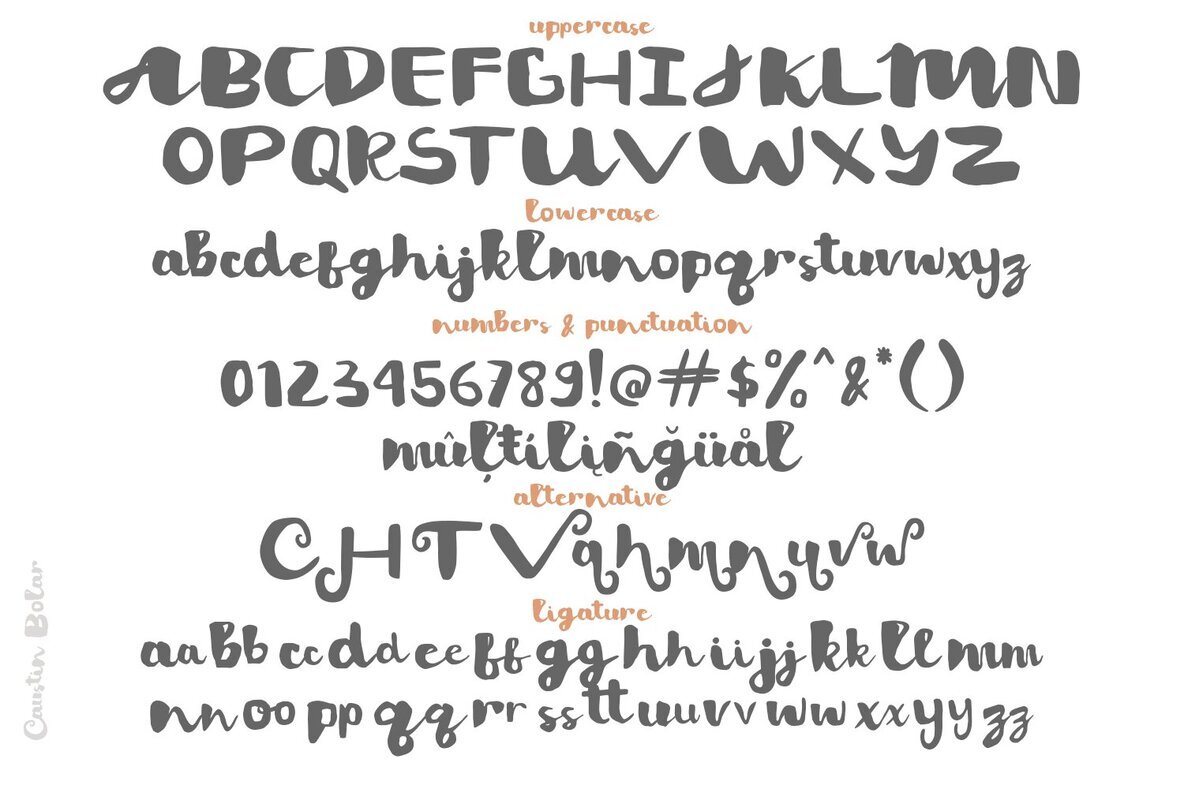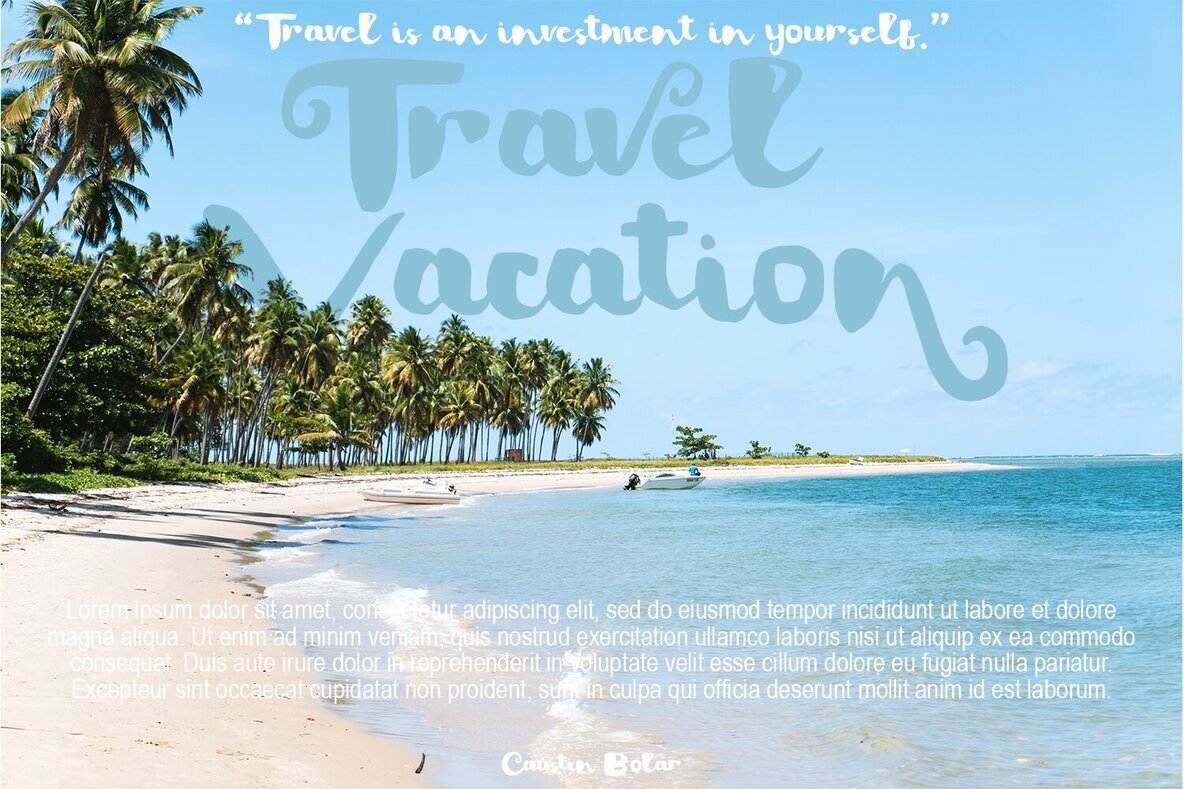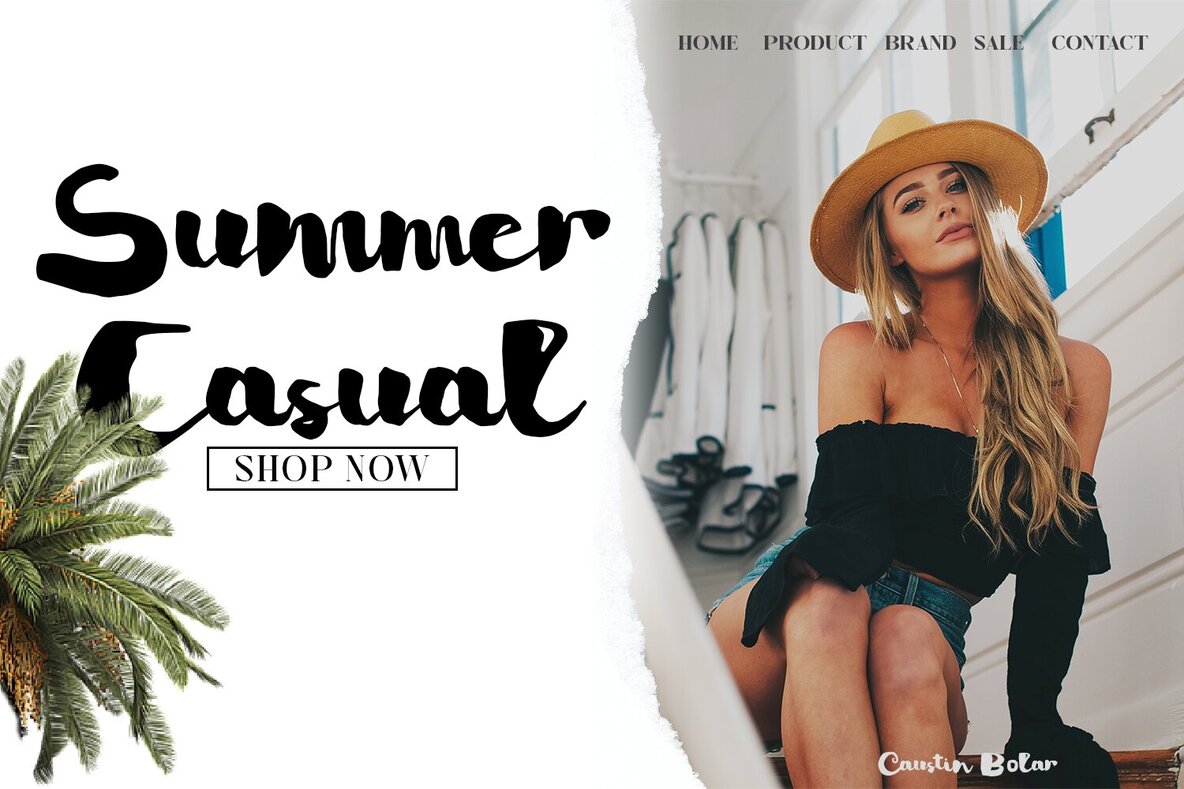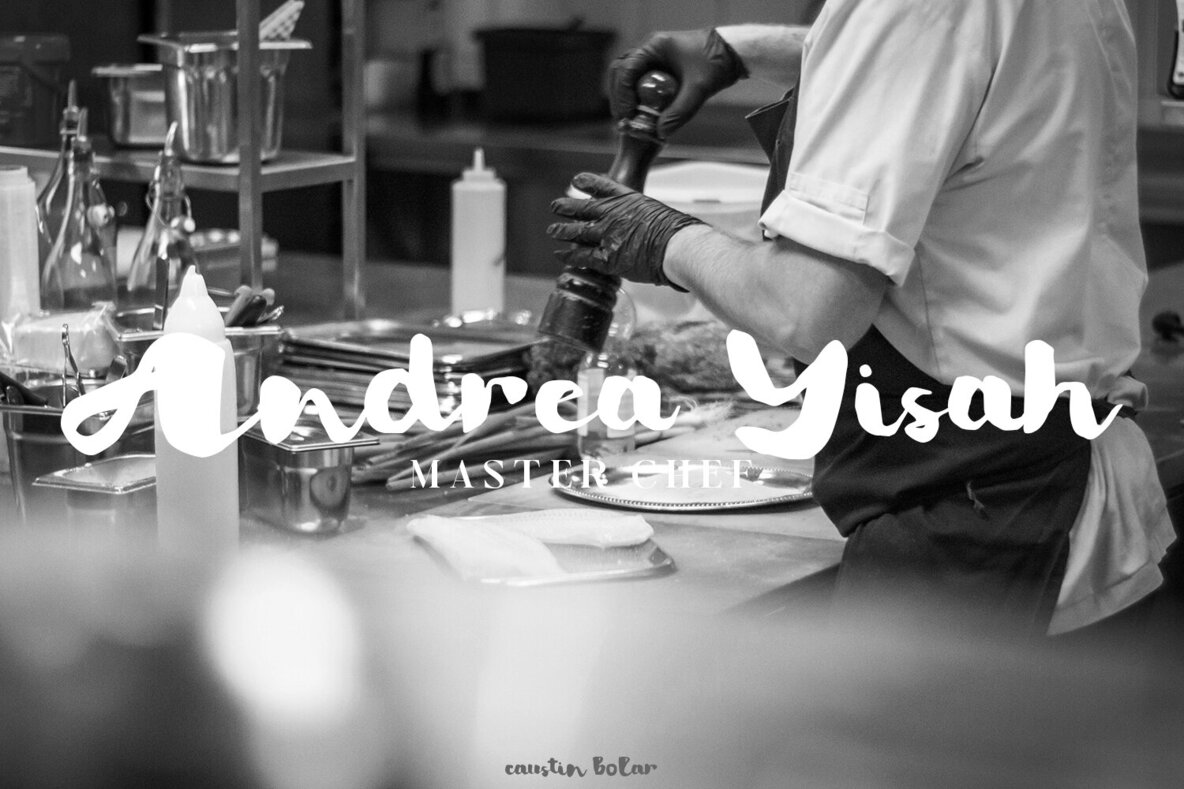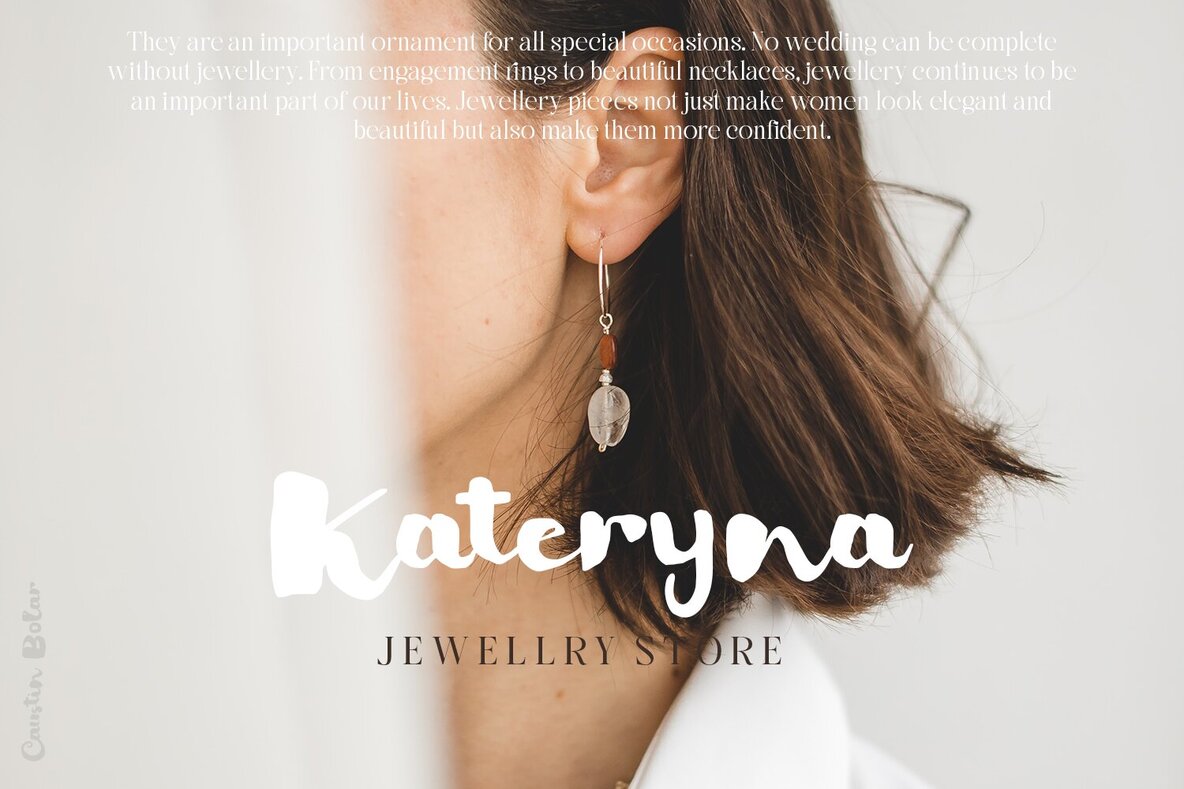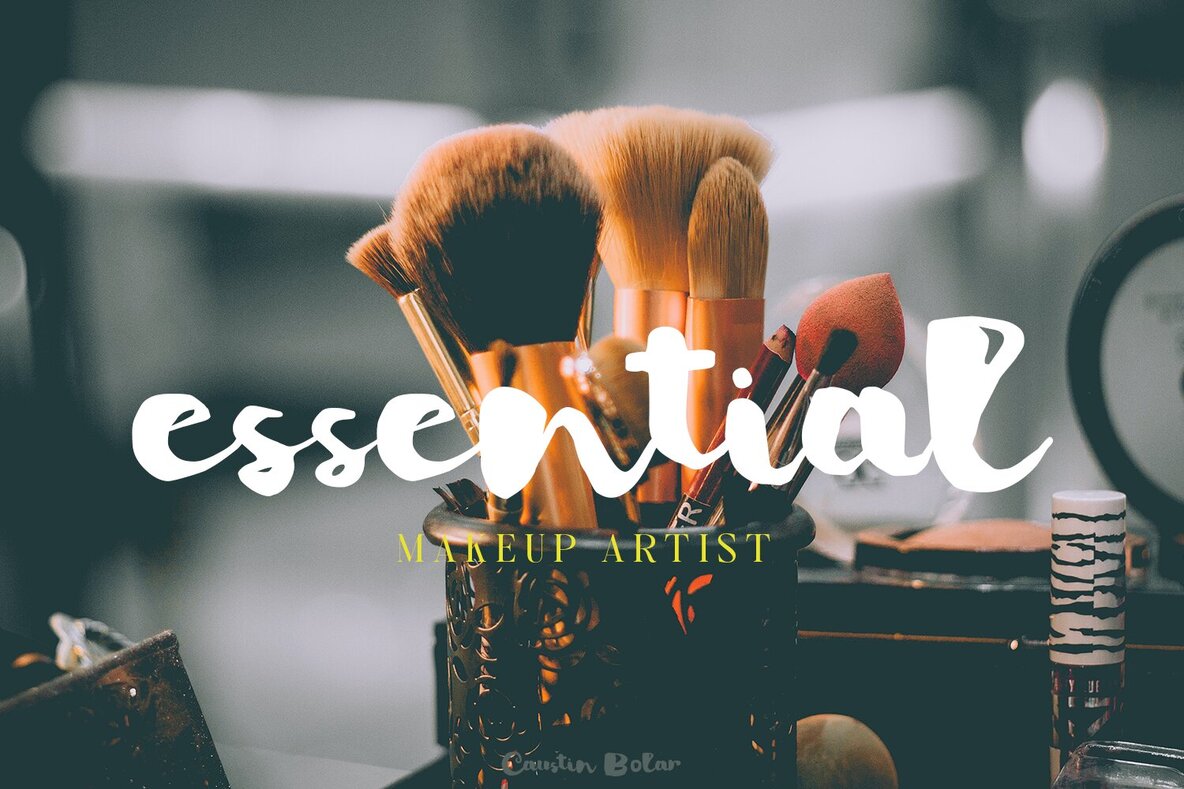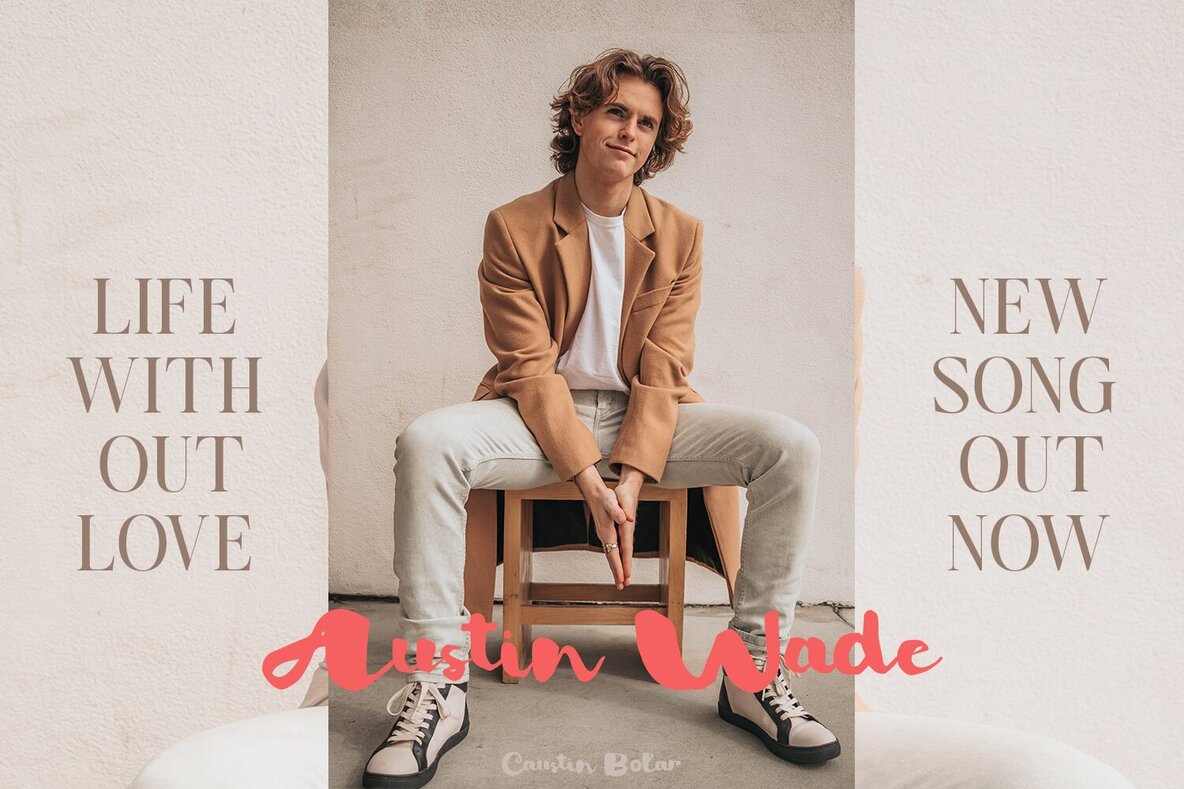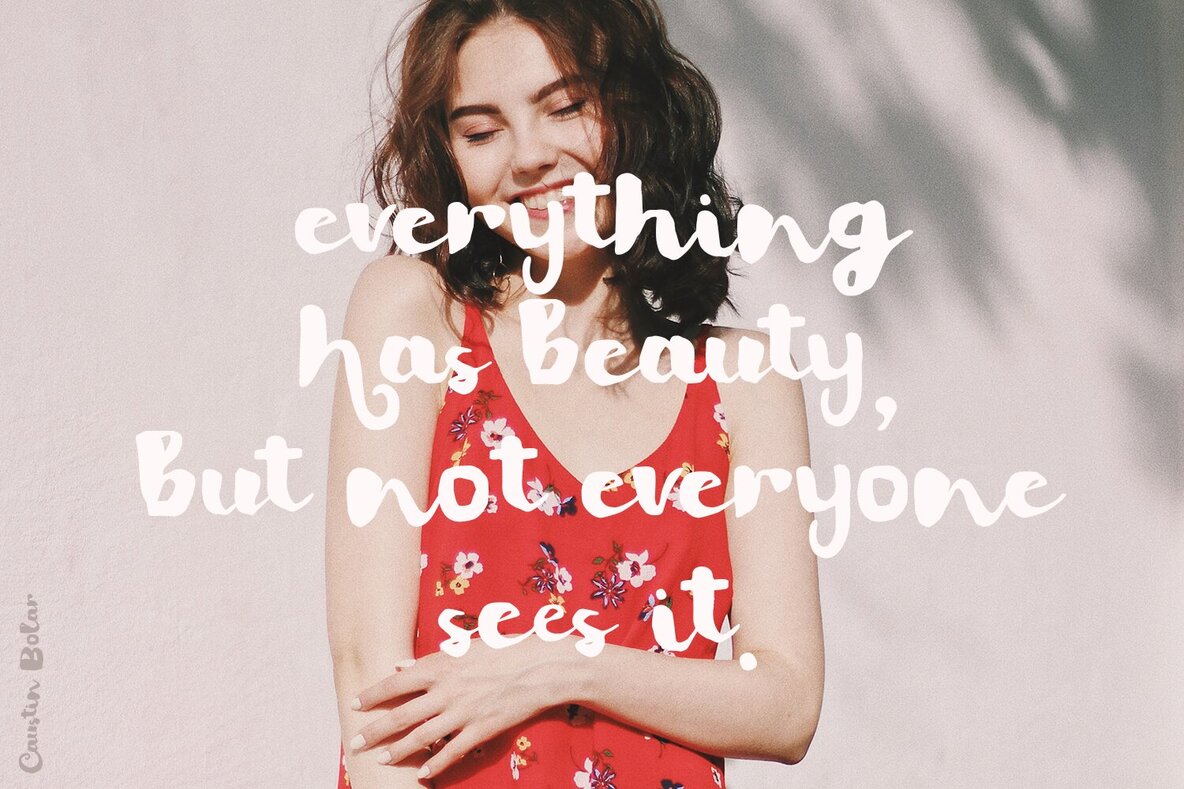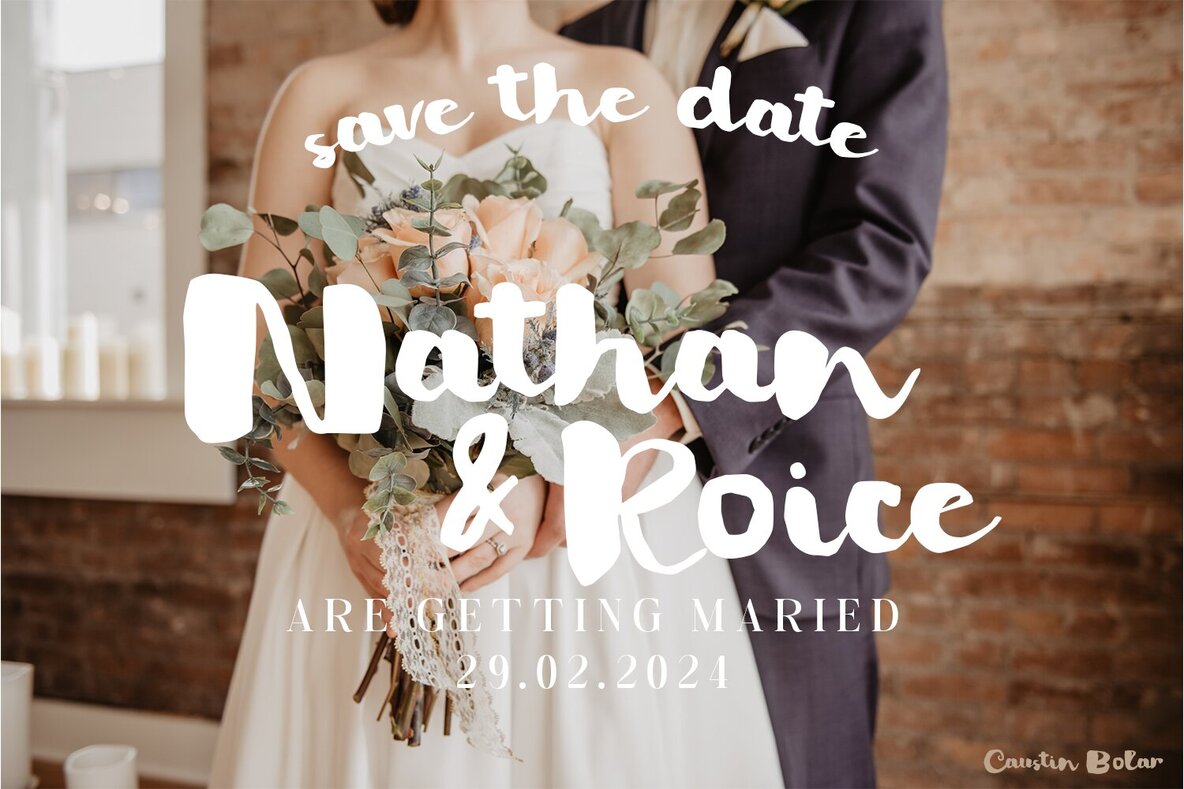
Caustin Bolar Font
Caustin Bolar is a bold brush script that serves as an ideal choice for a variety of design projects. With its expressive strokes, this font adds a dynamic flair to any creative work.Caustin Bolar: Bold Brush Script for Diverse Design Projects